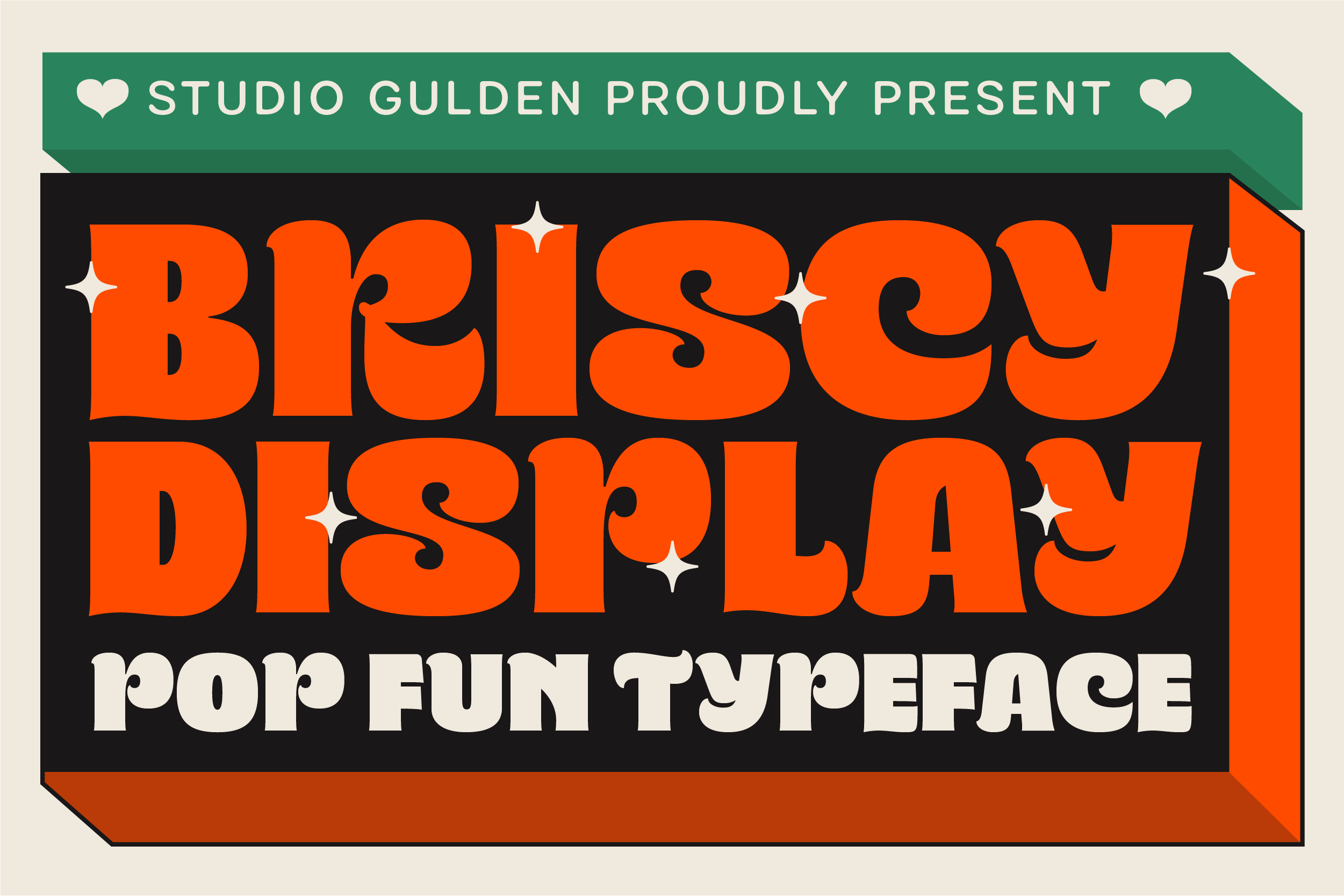
SG Briscy DEMO Font
About SG Briscy DEMO
SG-BRISCY is a display typeface bursting with personality! Bold, fun & playful, it's perfect for injecting pop style into your designs & making them stand out. This is DEMO version, check on our website for full license fonts!